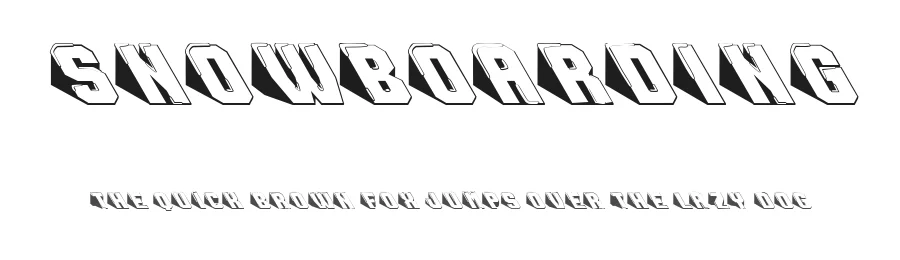
About Snowfall Font
Snowfall is a decorative font designed by Shellie in co. It includes 61 glyphs, a thin weight, TTF (TrueType) format, and 103 languages. Snowfall is free to download; check the license details on this page before commercial use. Decorative fonts like Snowfall work best for logos, posters, packaging, and standout headlines.
Snowfall Font is a decorative font that shines as a display or heading face. Pair it with a clean sans-serif or serif font for body text β the contrast creates a clear hierarchy while the two styles stay balanced and easy to read.
Snowfall Font
Snowfall Font is a decorative typeface by Shellie in co, ideal for logos, invitations, branding, and creative projects.